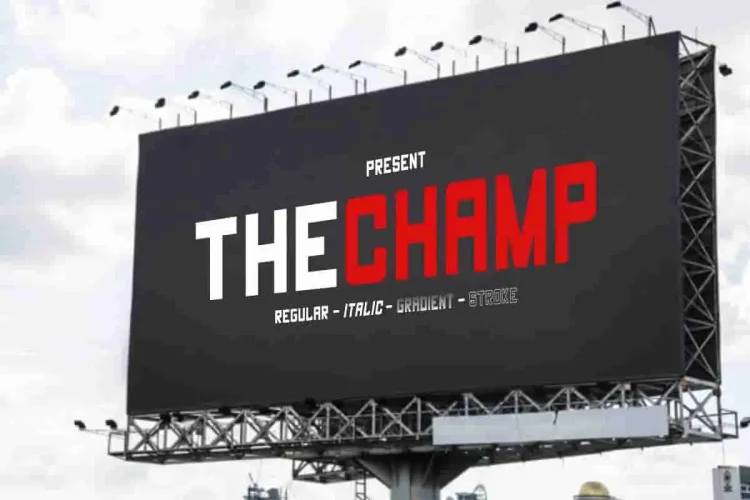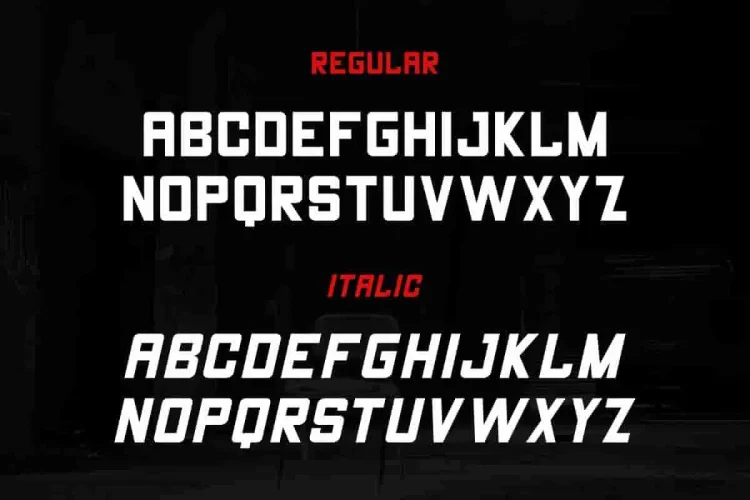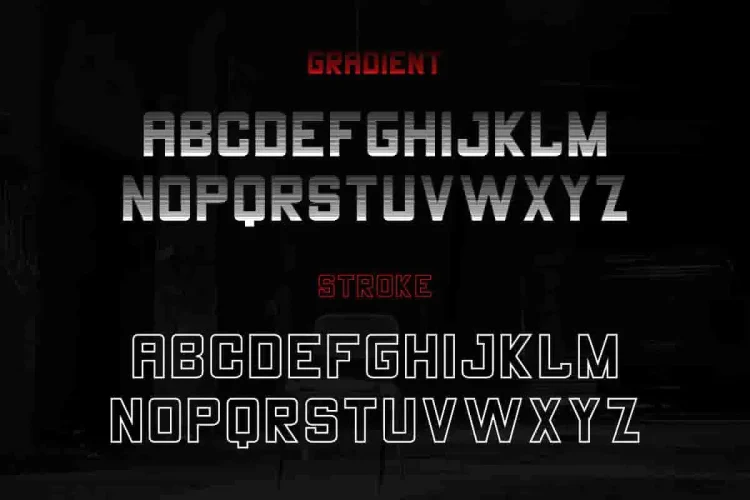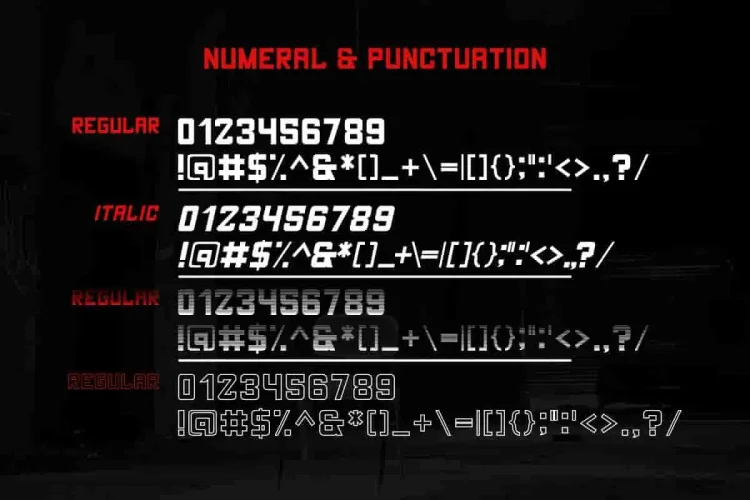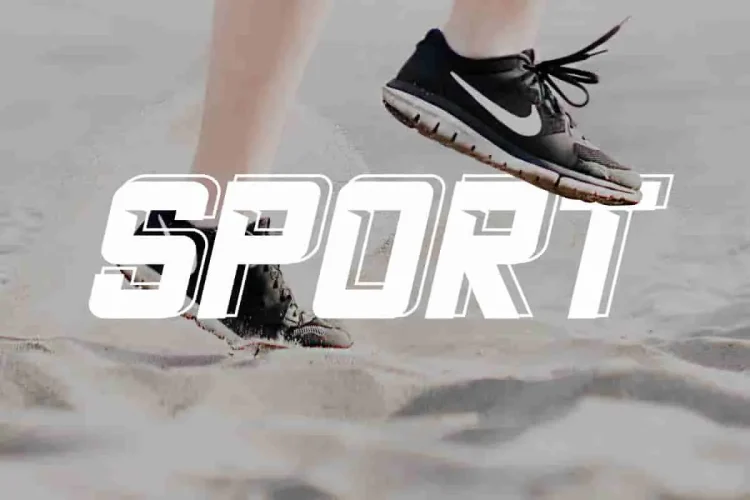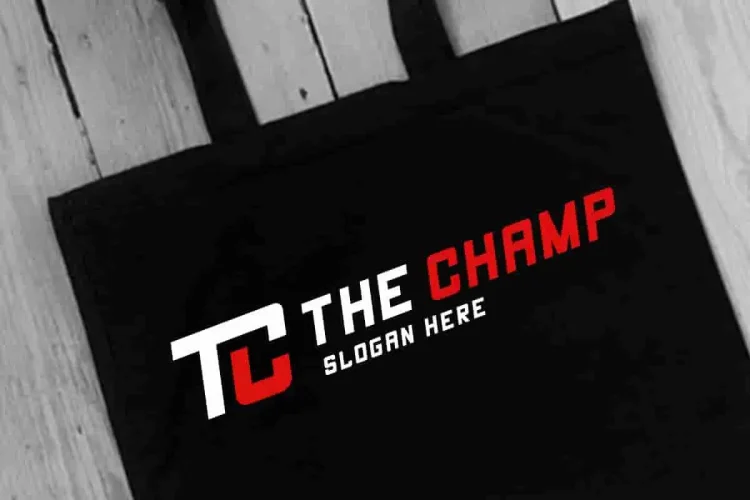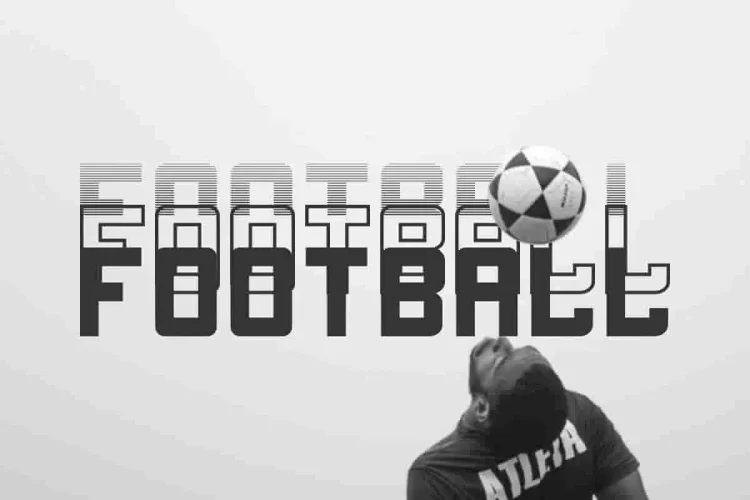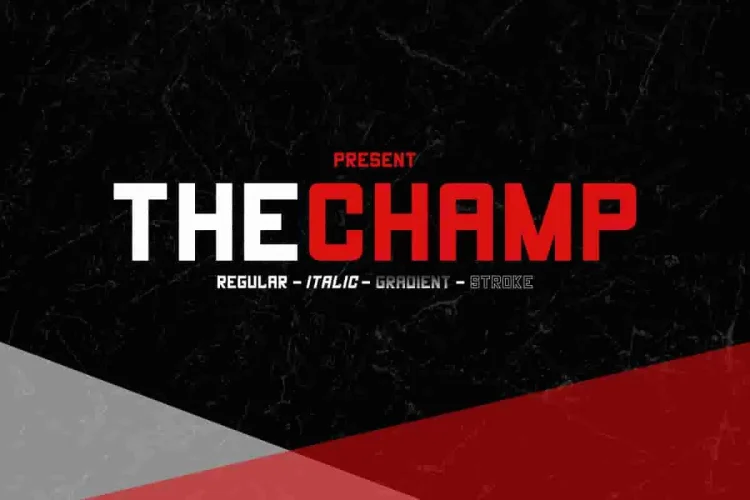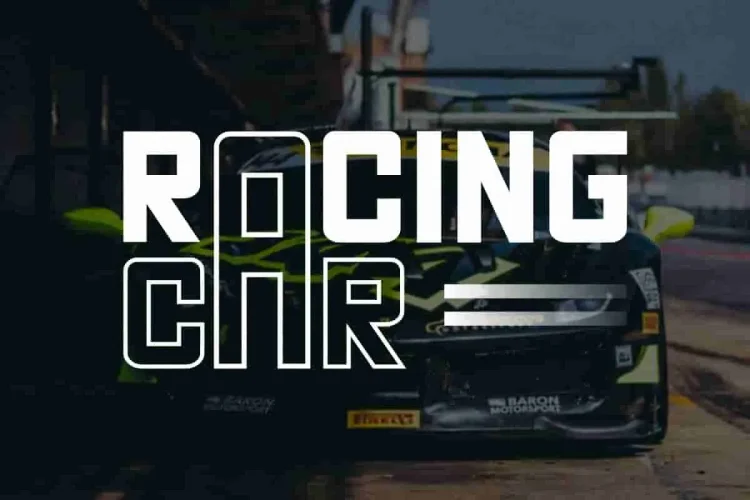
The Champ Sans Serif Fonts
🚀 The Champ – Sans Serif Display Font is your new go-to for bold branding. Designed to look strong, modern, and versatile, this all-caps typeface delivers maximum impact across logos, flyers, business cards, brochures, and digital graphics.
🎯 The Champ comes with FOUR bold styles built to command attention:
• Regular – Strong and solid. Perfect for logos, signage, posters, and bold headers. Its clean sans serif structure ensures legibility and impact.
• Italic – Adds a sense of speed and energy. Ideal for racing brands, action-themed visuals, or dynamic headlines.
• Gradient – A futuristic touch with horizontal lines and depth. Best used in digital layouts, tech branding, or anything that needs a modern edge.
• Stroke – A sleek outline version that brings style and structure. Use it for trendy typographic overlays or as a layered design element.
Built with geometric precision and bold character, it’s the perfect match for industries that demand confidence. There are many industries that is suitable for this font : construction, real estate, services, racing, cars, motorcycle club etc. The Gradient style offers a dynamic, futuristic edge, while the Stroke variant adds modern contrast and dimensional depth. Meanwhile, the Italic version brings sleek motion, ideal for performance and speed branding.
đź’ˇ Why Choose The Champ?
• Bold & impactful sans serif structure
• Modern, clean design for a wide range of applications
• Flexible style options for maximum creative control
• Optimized for display use with high legibility
• Perfect for both digital and print media
👊 Be bold. Be sharp. Be the Champ.